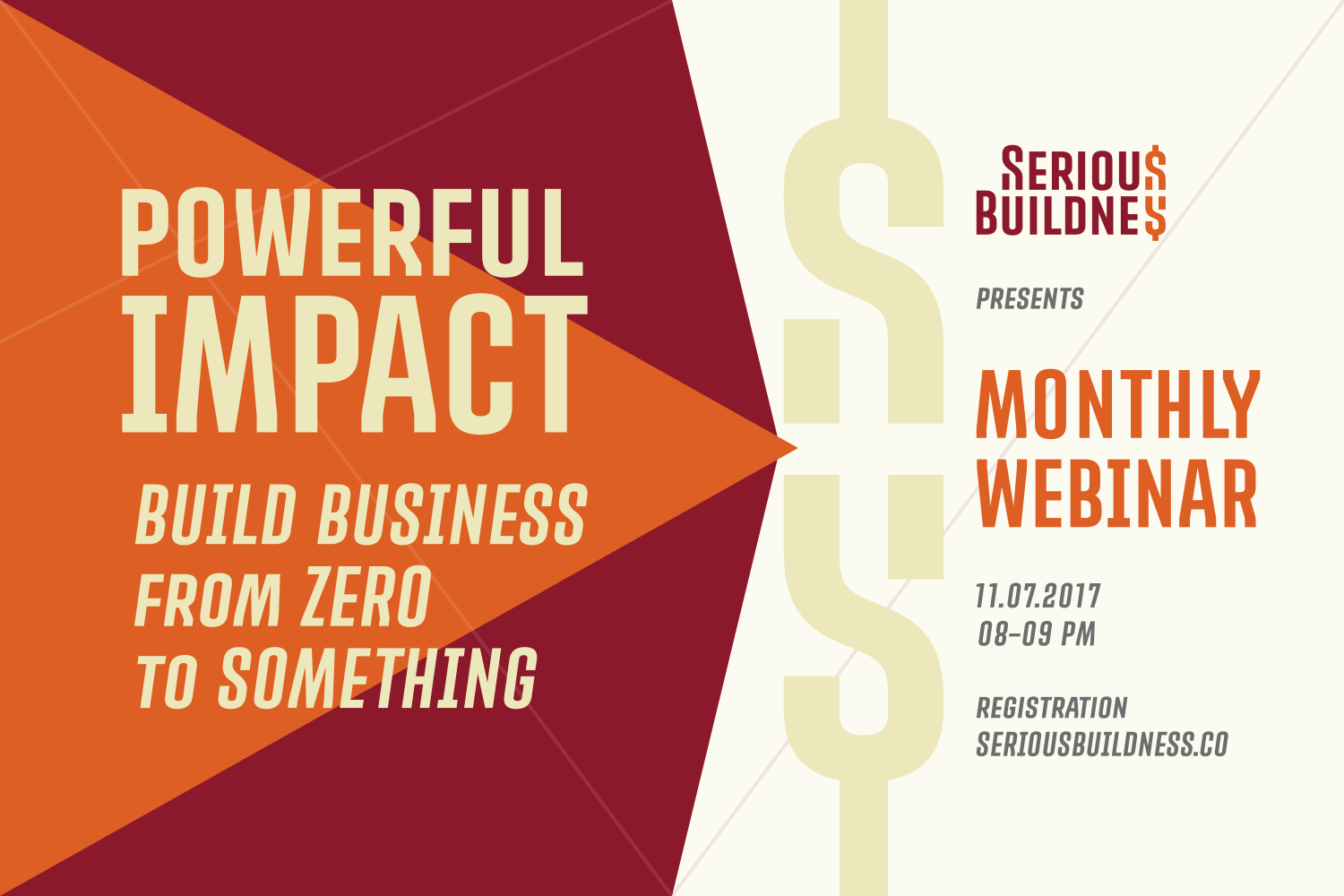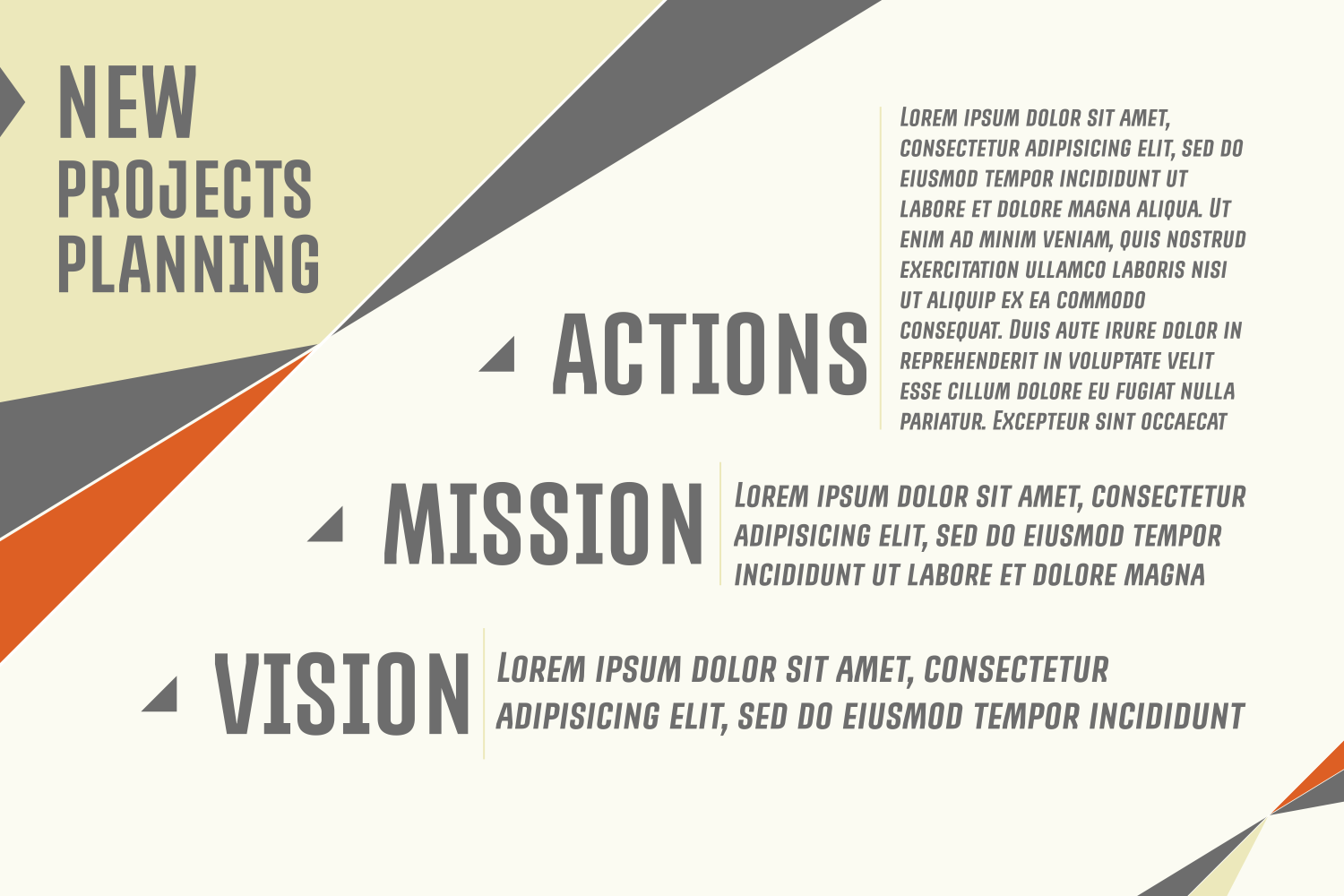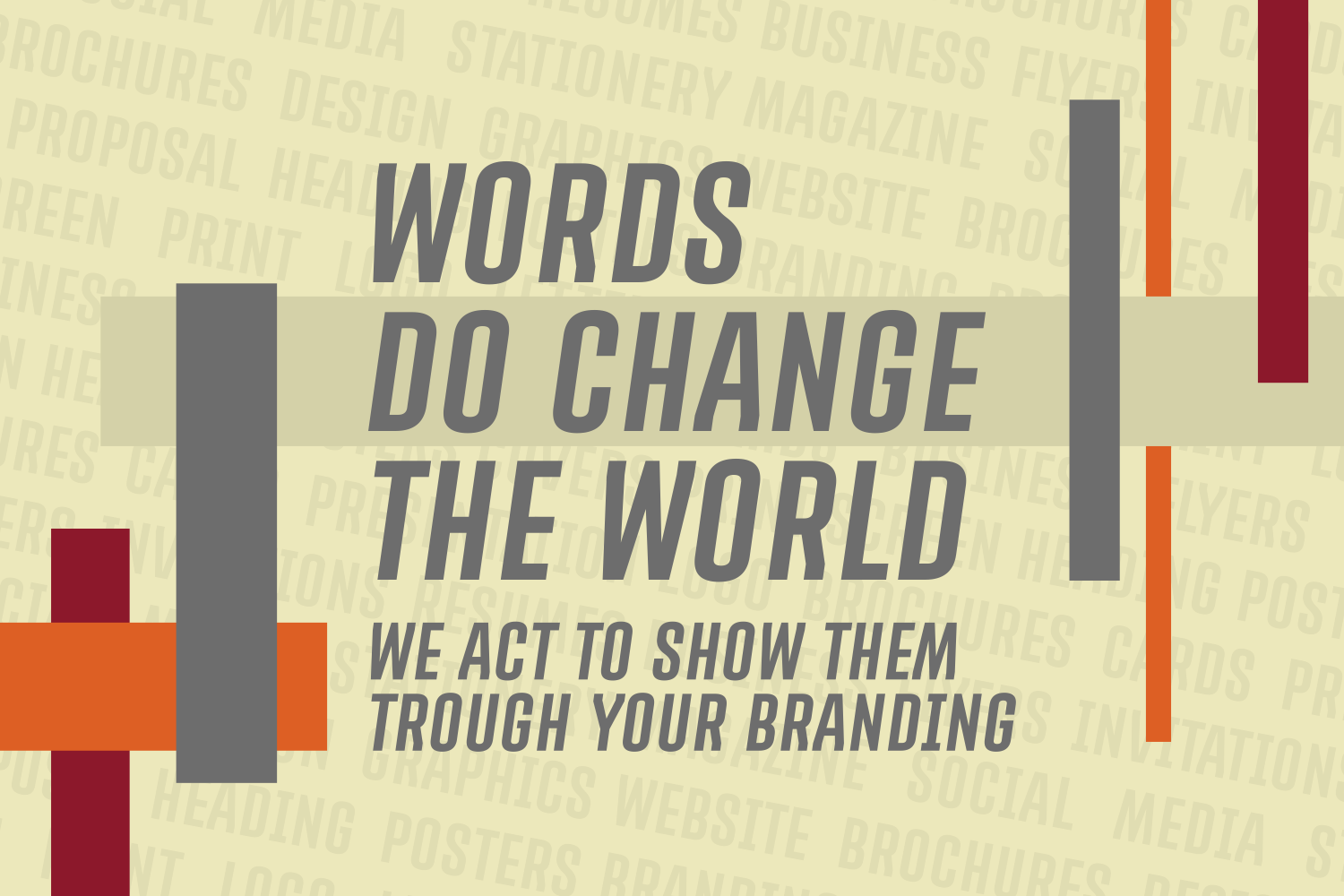
Introduction to Promova Font
Have you ever stared at a blank design canvas, struggling to bring your creative project to life? It’s that moment of frustration when you wish you had the perfect font to elevate your design. Well, we’ve got some exciting news for you – the wait is over with the introduction of Promova Font, a stunning new variant of the popular Gobold family.
| 👤 Author | Situjuh |
With Promova Font, you’ll have the power to create a strong impression on your audience, whether it’s through print or digital designs. This versatile font comes in two weights – Regular and Italic – giving you the freedom to experiment with different styles and designs. Whether you’re working on a high-end branding project or a creative campaign, Promova Font is the perfect design resource to take your work to the next level.
Key Features of Promova Font
- Unique, modern design with a transparent background, perfect for layered designs
- Perfect for designers and artists working on creative projects, from digital art to print design
Honest Review: Promova Font
I recently came across the Promova Font, and I must say it’s a great addition to any designer’s arsenal. This font is perfect for creative projects that require a unique touch. One of the standout features of the Promova Font is its high quality and versatility.
- Transparent background: This feature allows for seamless integration into any design, making it a great resource for designers.
- High quality: The Promova Font is well-designed and offers a range of styles to suit different design needs.
- Limited font weights: While the Promova Font offers a range of styles, it’s limited in terms of font weights.
- No extensive character set: The font’s character set is relatively basic, which may be a drawback for designers working on complex projects.
Overall, I’m impressed with the Promova Font. It’s a great design resource that can add a unique touch to any creative project. While it has some limitations, its high quality and free download make it a worthwhile option for designers. I’d definitely recommend it to anyone looking for a reliable and versatile font.
Tips for Getting the Most Out of Promova Font
Here are some tips for getting the most out of the Promova Font:
– Use the Promova Font in conjunction with other design resources, such as images and graphics, to create a unique and eye-catching design.
– Experiment with different font sizes, colors, and styles to create a visually appealing design.
– Use the Promova Font in a variety of creative projects, such as presentations, documents, and social media graphics.
Common Use Cases for Promova Font
The Promova Font is a versatile design resource that can be used in a variety of creative projects, including:
– Presentations and documents
– Social media graphics and ads
– Blog posts and articles
– Creative projects and portfolios